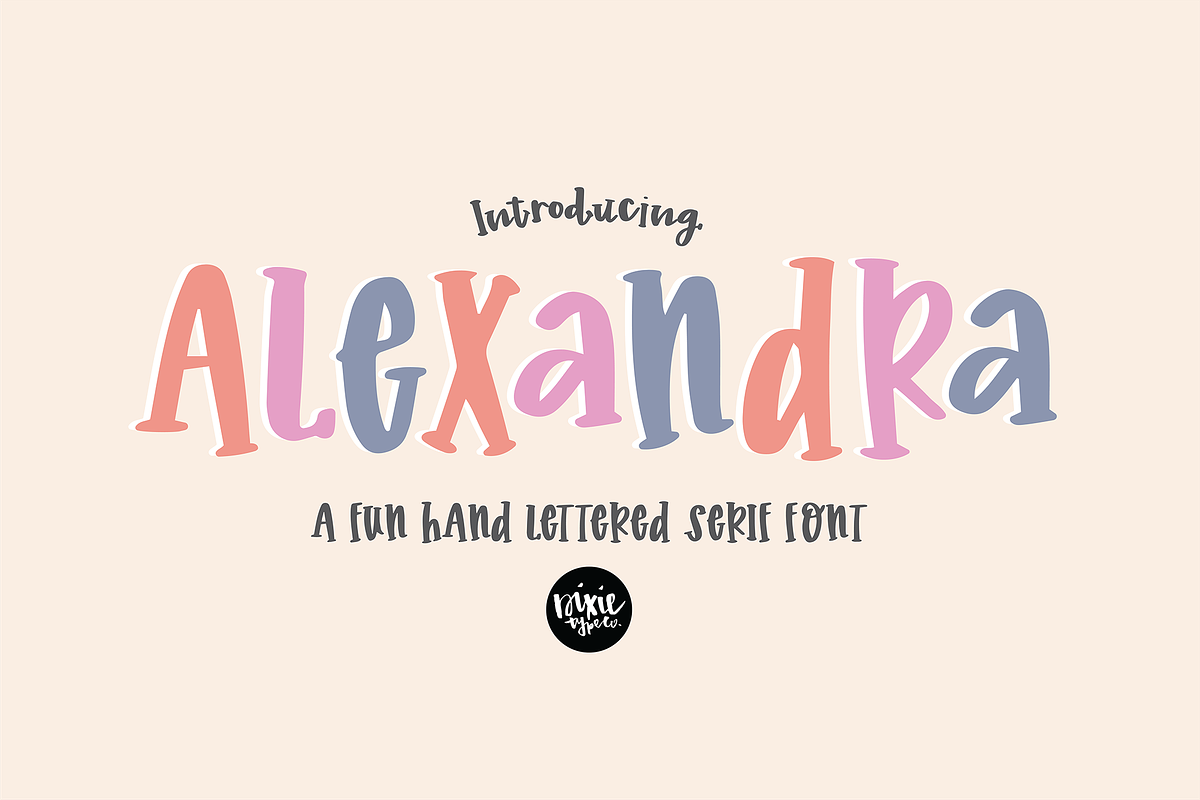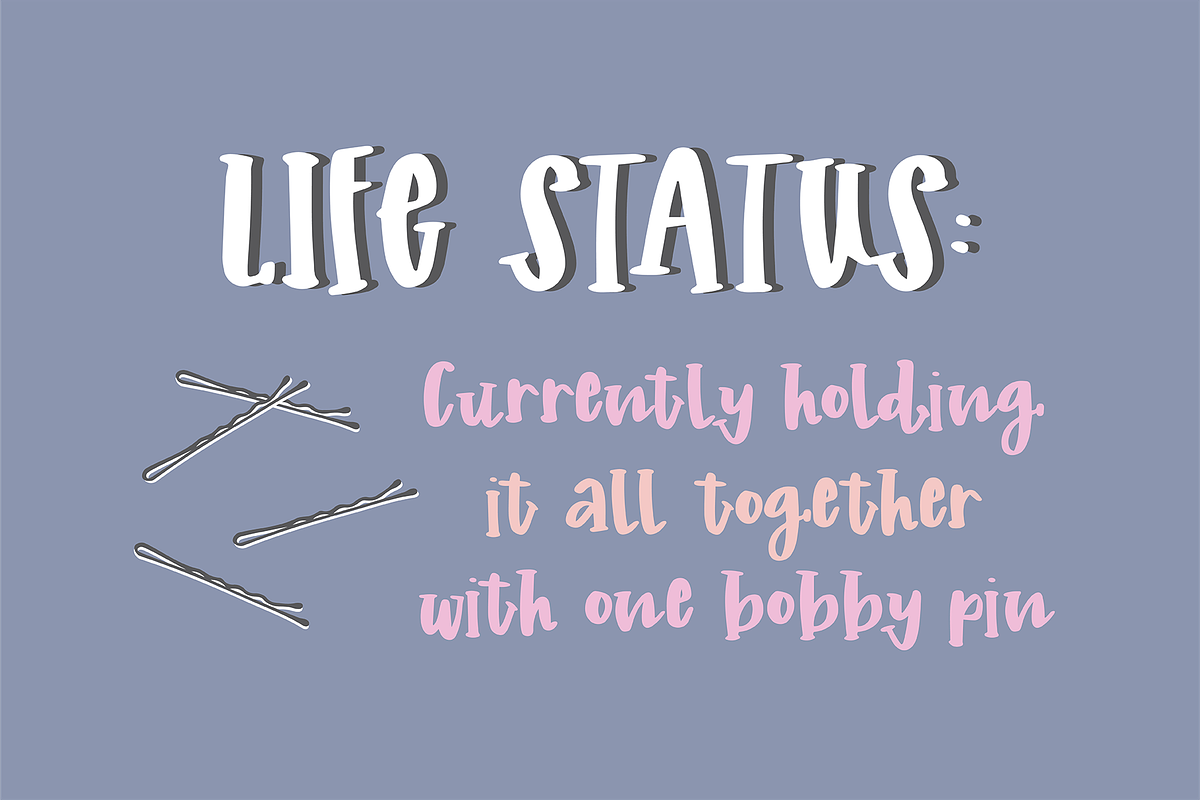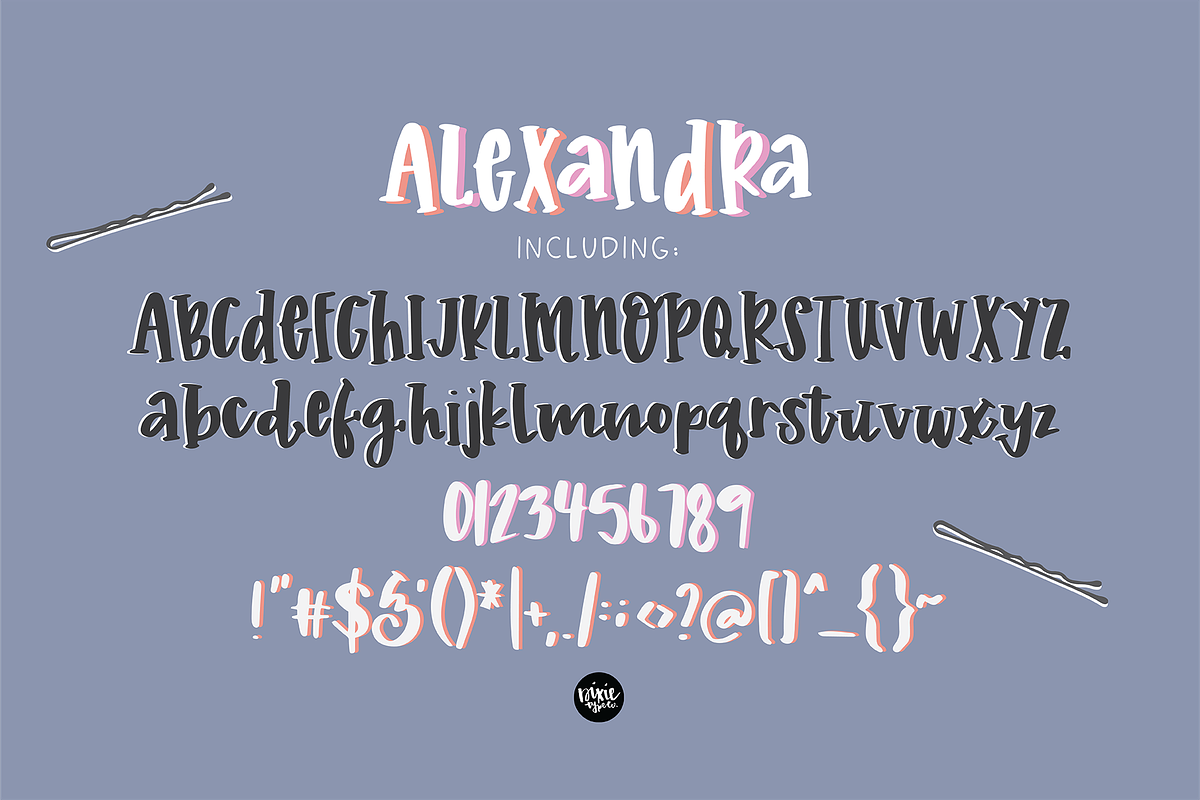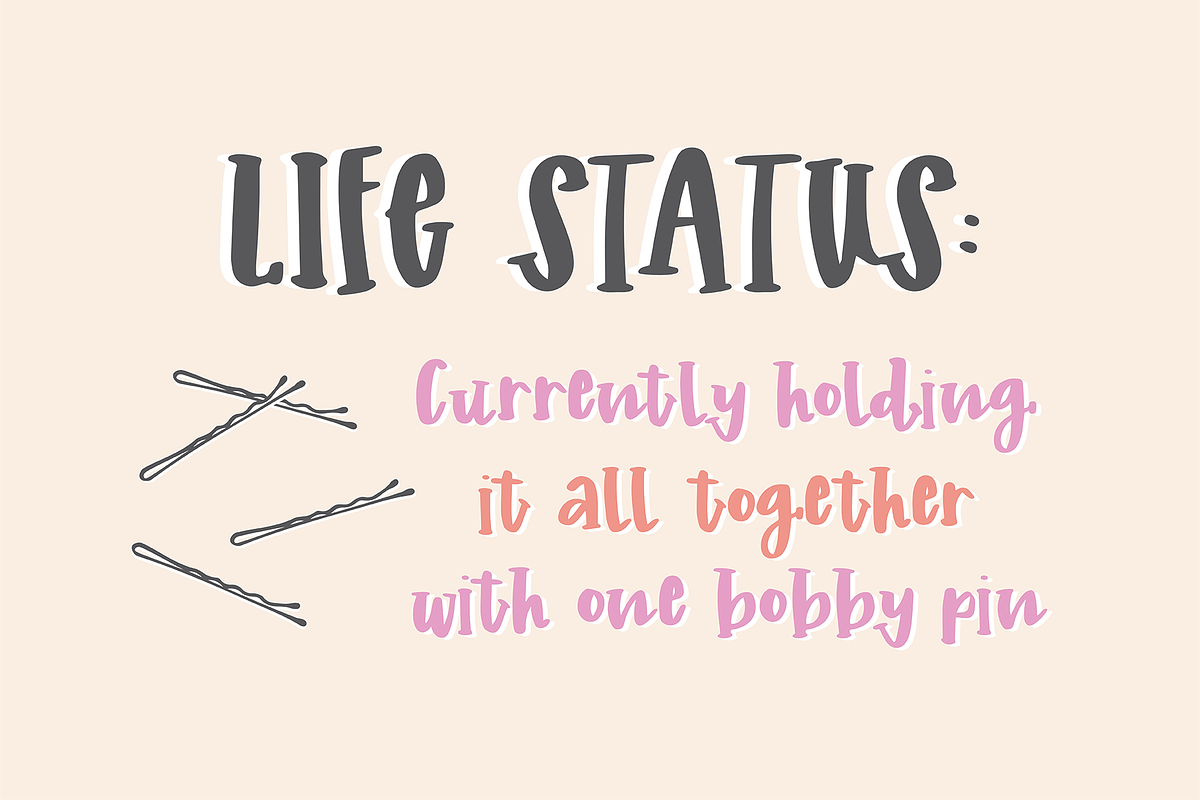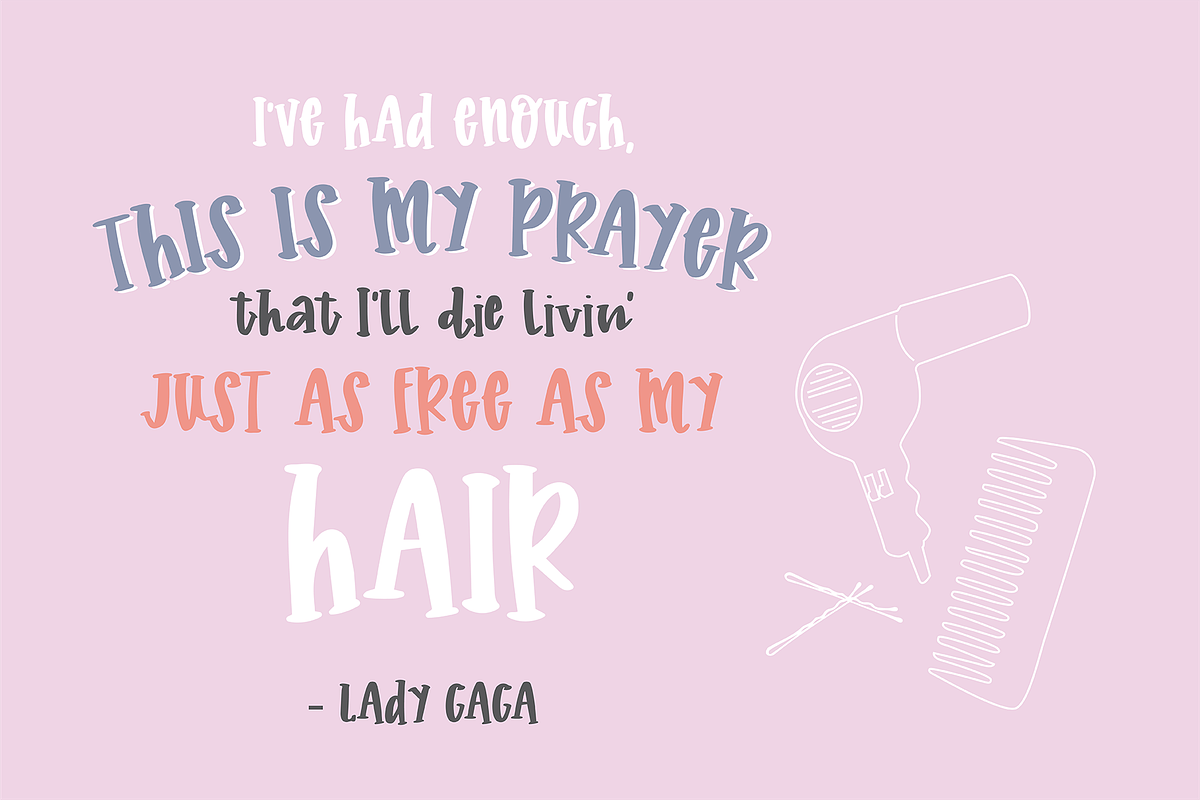
ALEXANDRA a Hand Lettered Serif Font
"Alexandra" hand lettered serif installable font. { A typographic font hand lettered with love by Dixie Type Co. }
Alexandra is a fun hand lettered serif font. It is girly and fun. Use it for parties, crafts, invitations and more! This is the perfect serif font with a lot of personality to have on hand.
- Font includes: Upper and lowercase glyphs, and punctuation.